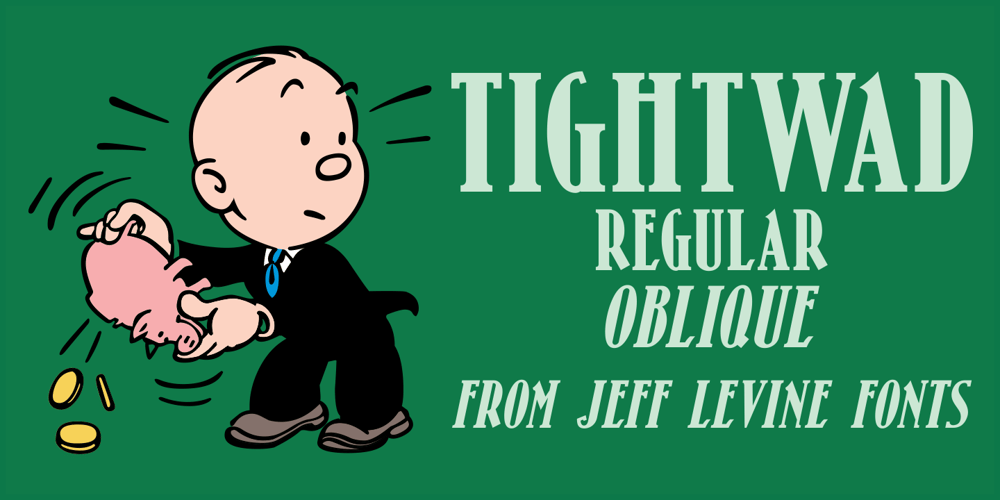
Tightwad JNL Font Family was designed by Jeff Levine and published by Jeff Levine. Tightwad JNL contains 2 styles and family package options. “I Don’t like No Cheap Man” is a piece of early 1900s sheet music featuring its title hand lettered in a condensed slab serif design. The influences of the Art Nouveau era are clearly found in the many eccentric character shapes within the various letters of the original artwork.Recreated in digital type, Tightwad JNL is available in both regular and oblique versions – and its font name is a variant of the “Cheap Man” portion of the song’s title.